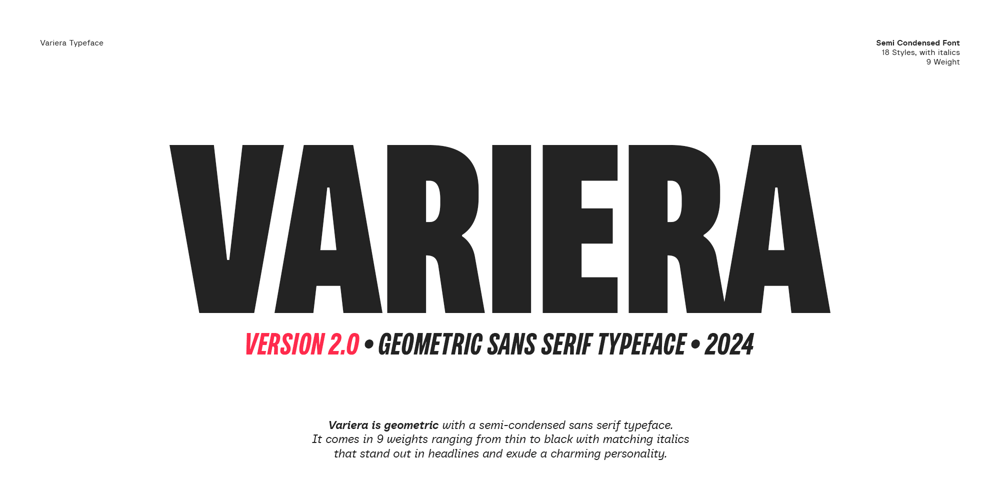
Variera Font Family was designed by Amal Yusuf and published by Kereatype. Variera contains 18 styles and family package options. Variera is geometric with a semi-condensed sans serif typeface. It comes in 9 weights ranging from thin to black with matching italics that stand out in headlines and exude a charming personality.Variera is a Utility display type that is flavor in motion. Each part of its system works together to captivate you, combining emotion and usability, allowing you to create attractive and unique designs.